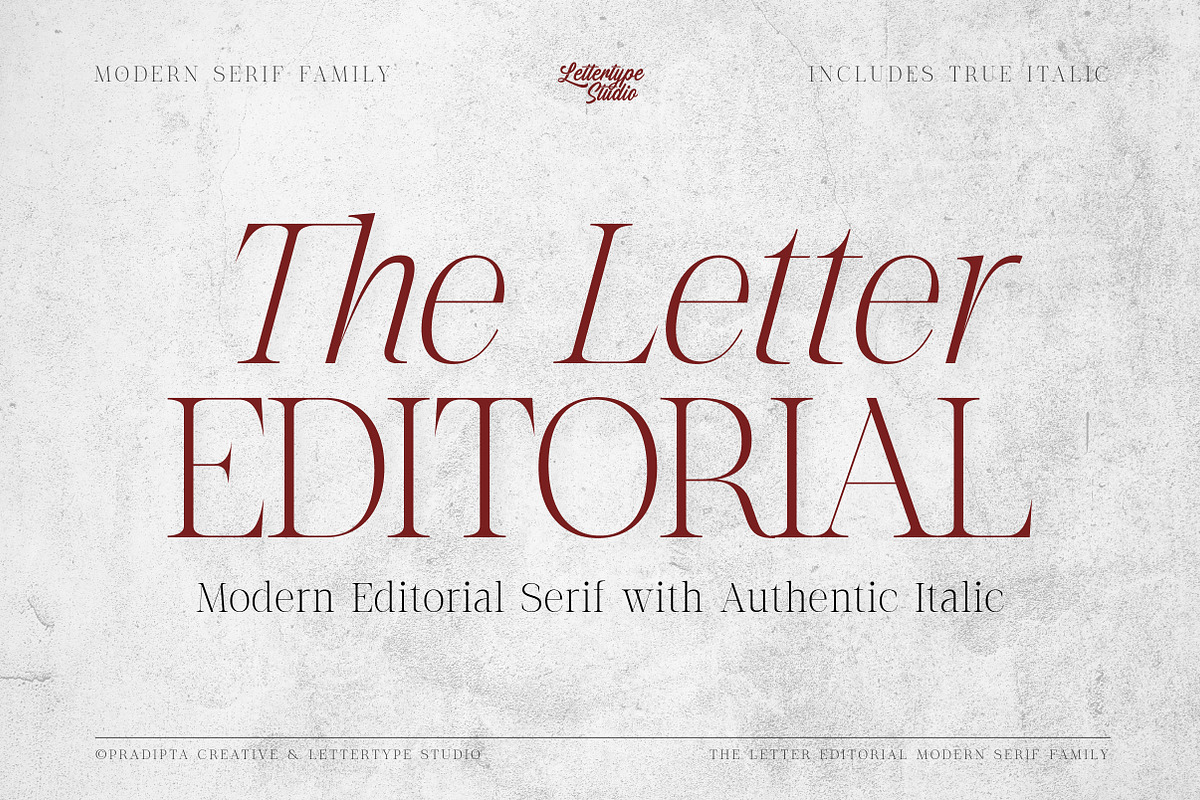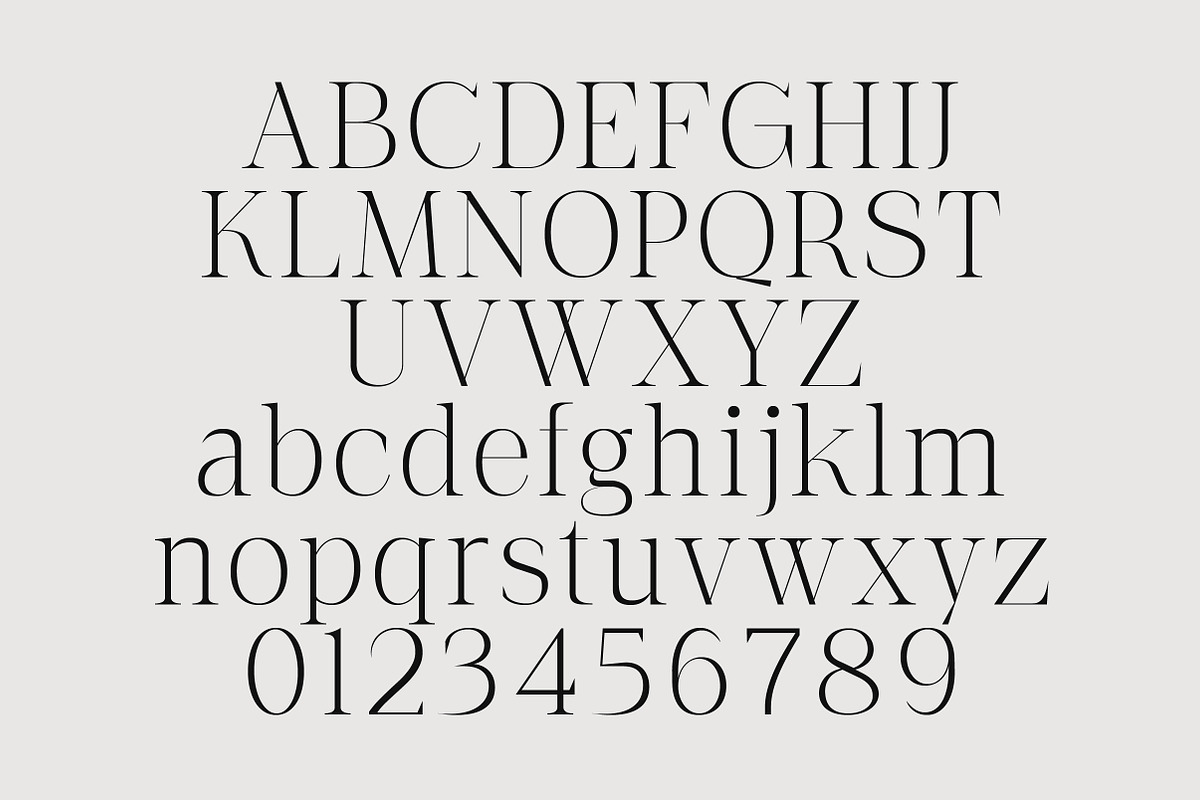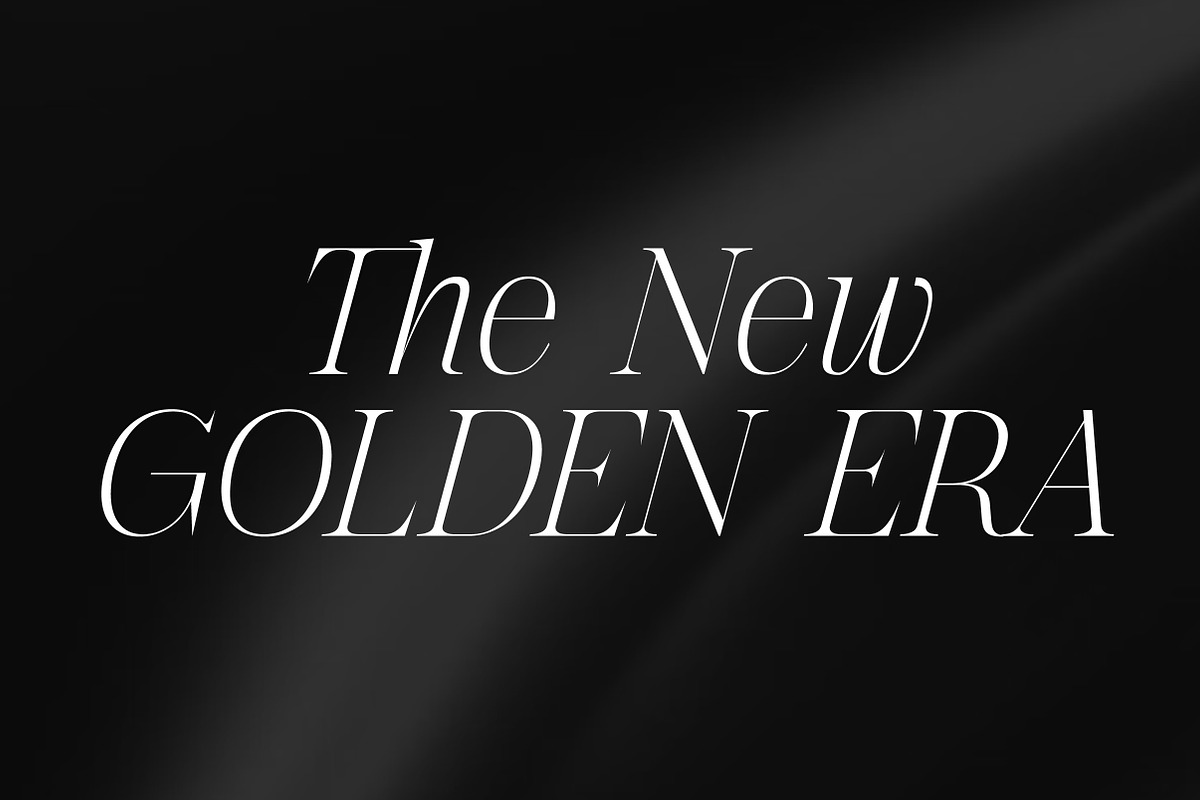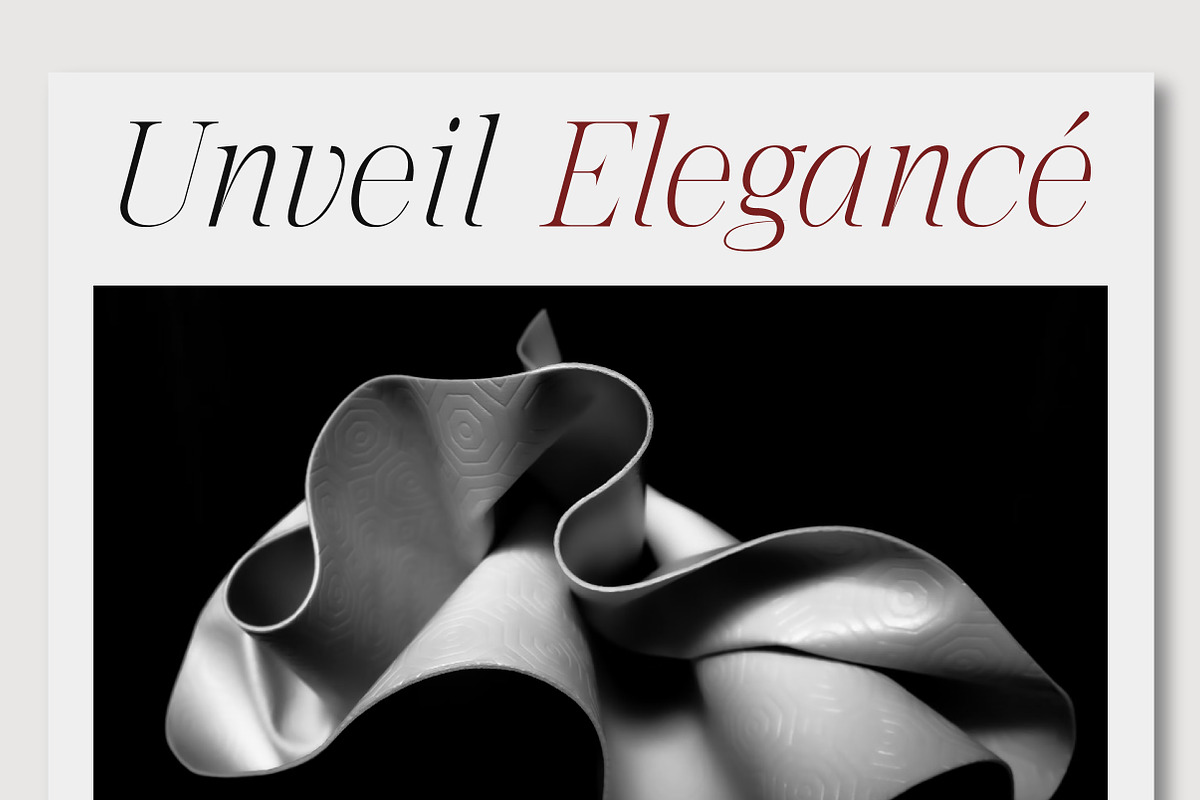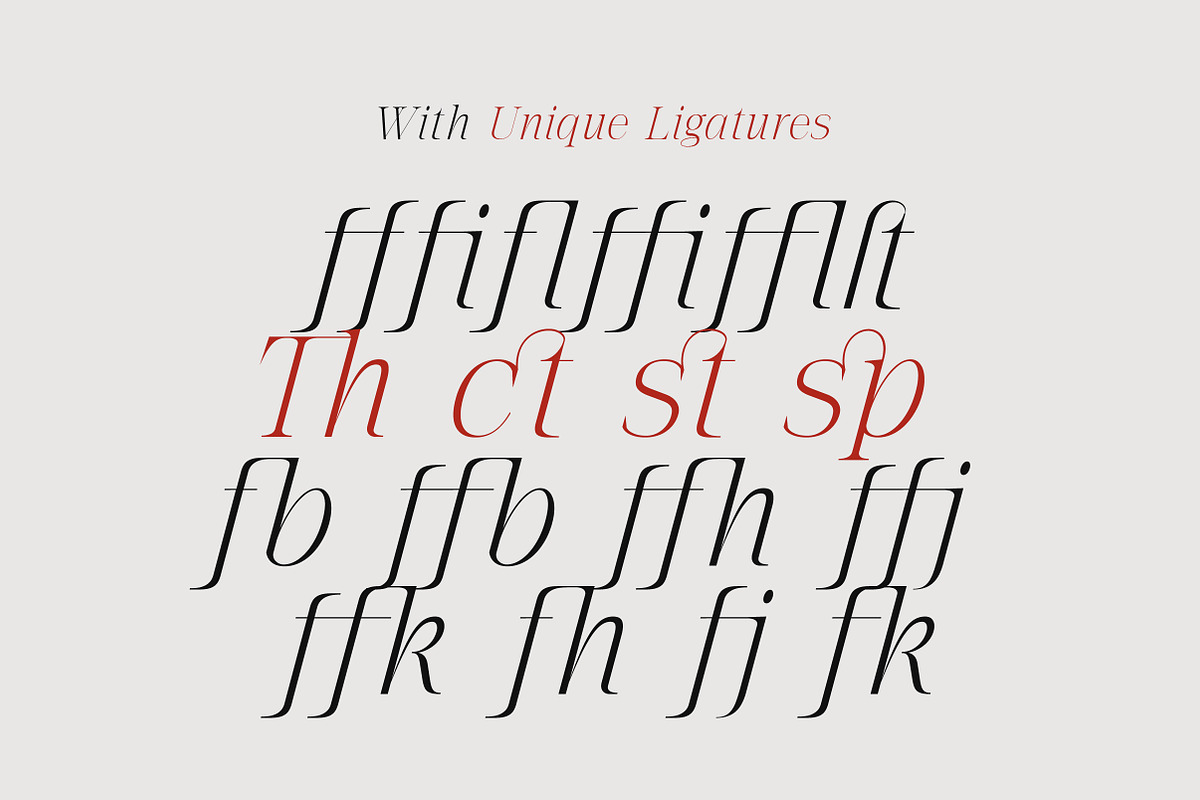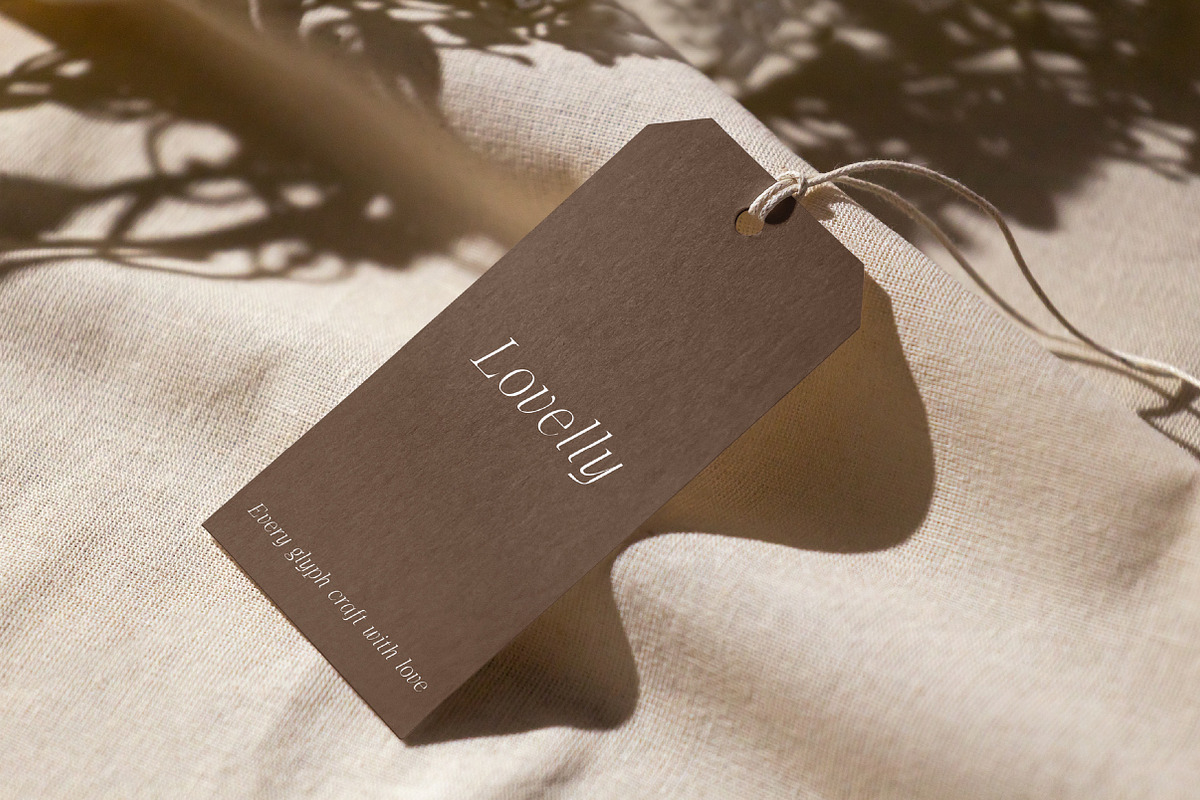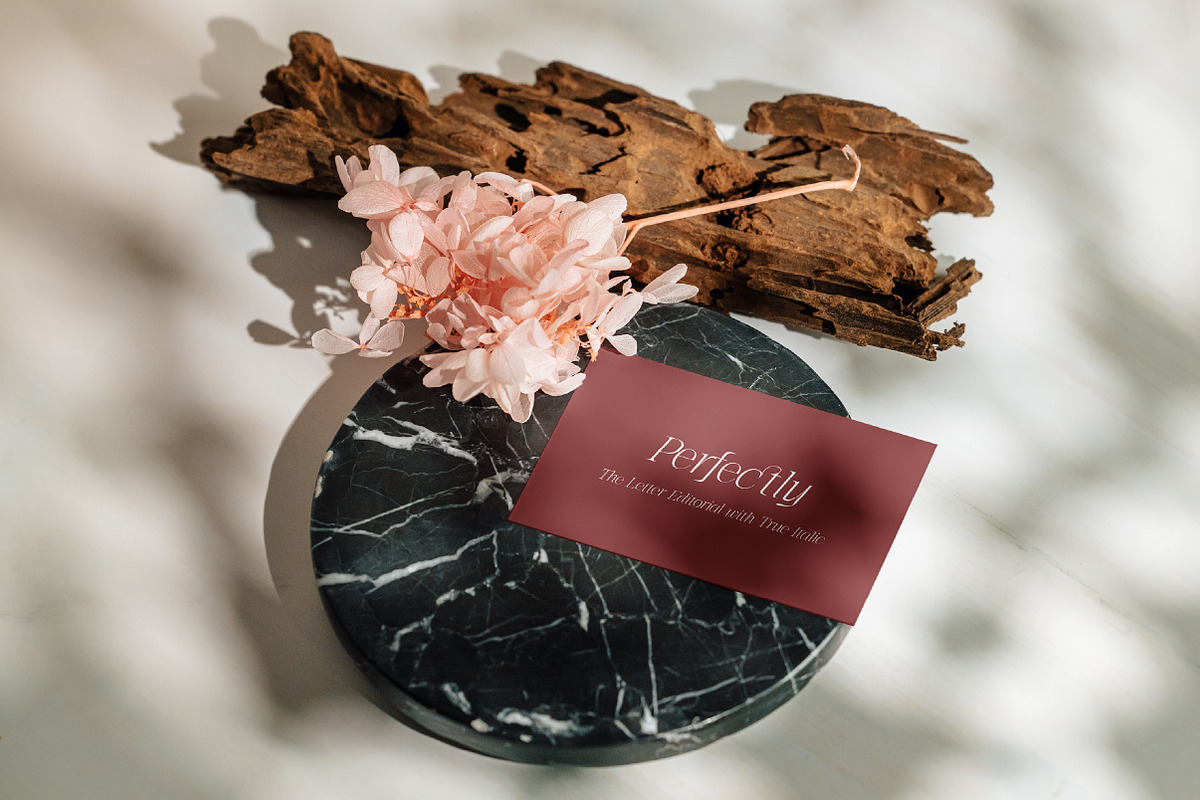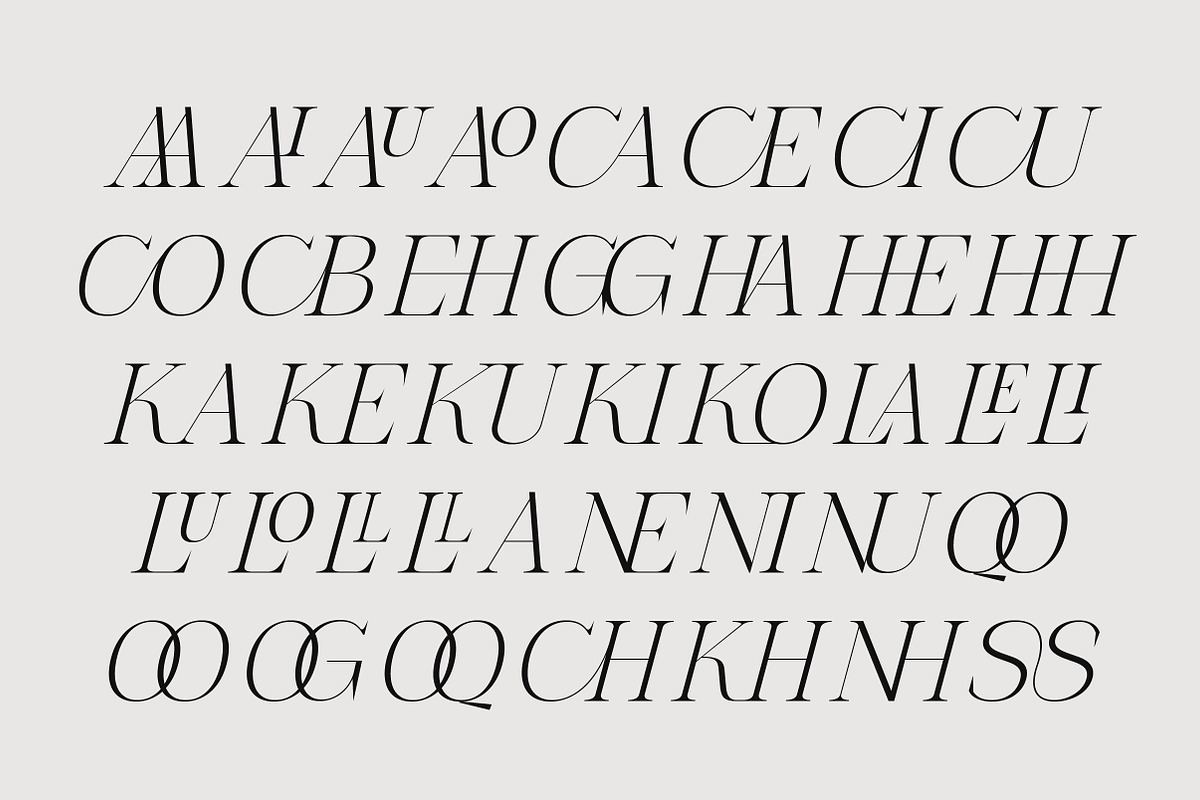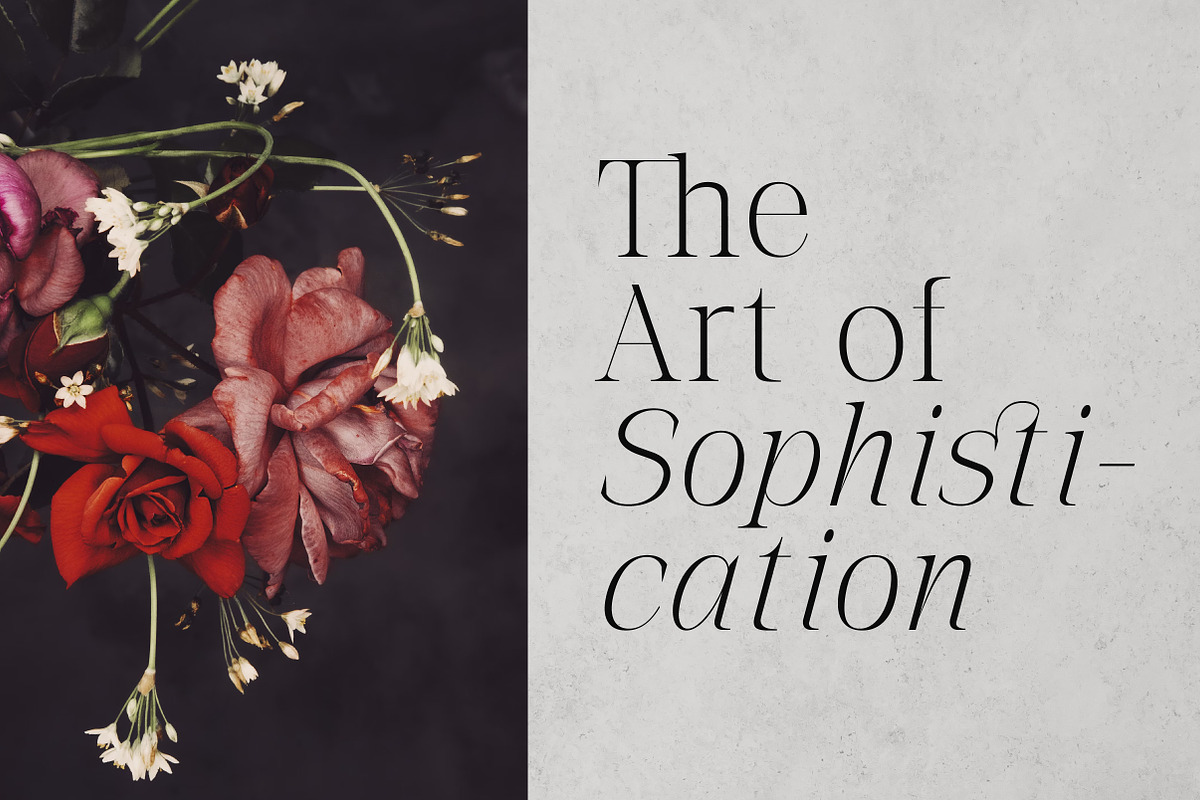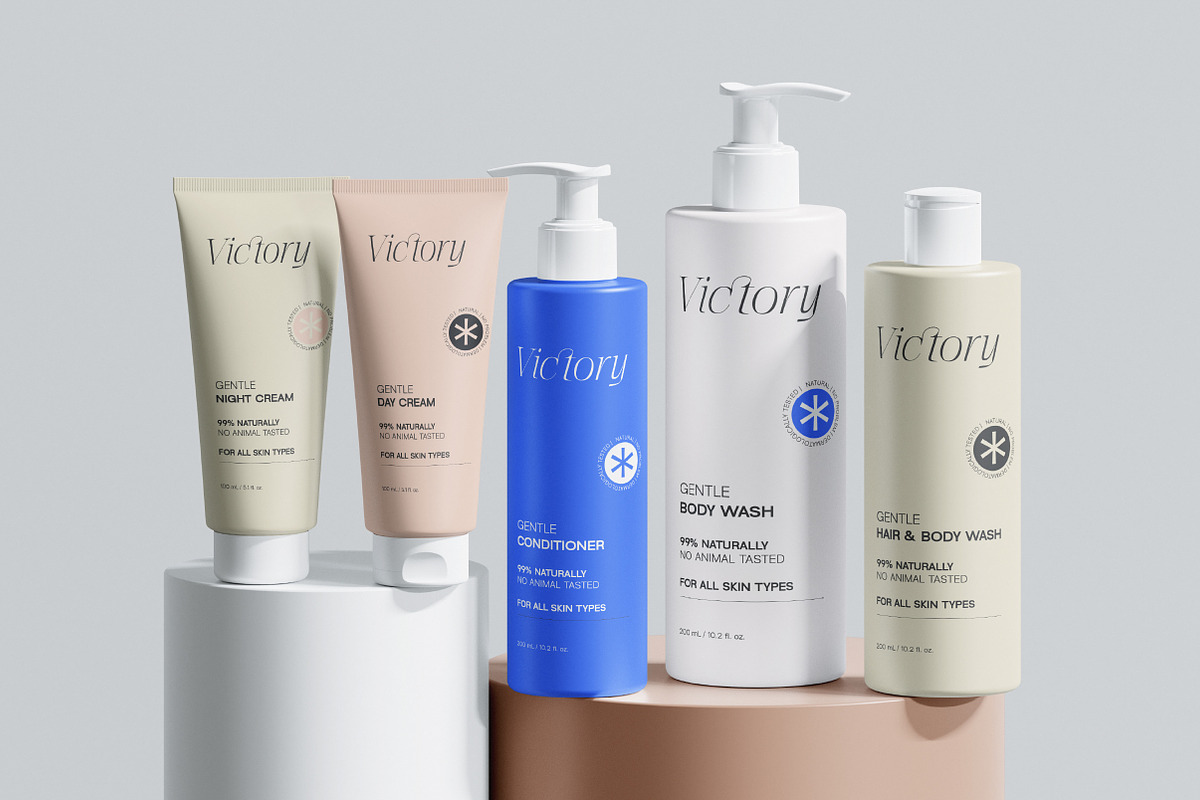
The Letter Editorial – Modern Serif
Introducing The Letter Editorial, a sophisticated serif font that captures the essence of modern editorial elegance. With its luxurious contrast, refined proportions, and gracefully sculpted letterforms, this typeface evokes timeless charm and contemporary sophistication. Designed with a high degree of attention to detail, the regular style radiates structure and poise, making it an ideal choice for luxury branding, fashion editorials, book design, and high-end packaging.
What sets this font apart is its true italic companion—not just a slanted version, but a beautifully redrawn style with flowing strokes, elegant curves, and a dynamic rhythm that breathes life into your typography. Whether you're crafting premium headlines or elegant body text, The Letter Editorial offers both function and flair. Perfect for those who demand beauty, clarity, and character in every letter.
The Letter Editorial Features:
- 2 Styles
- Upright & True Italic
- 482 Glyphs Total
- 260+ Languages Support
- Luxury branding, fashion magazines & editorial layouts
- Book covers, titles & elegant print design
- Packaging, invitations & premium stationery
- Logo design, monograms & visual identities
- Websites & digital media with a refined aesthetic